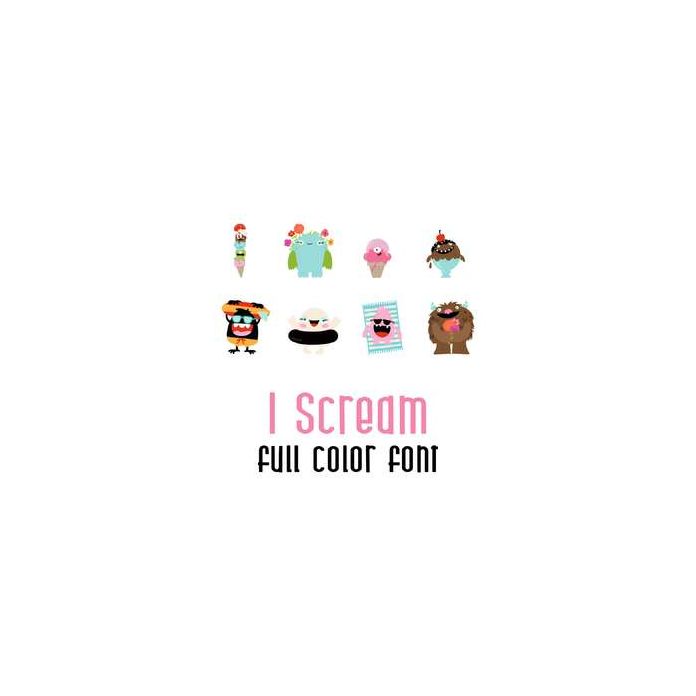
A full-color font stores svg data inside an Open Type font file. This font will look black if not used in a program like Silhouette Studio which is compatible. Images can be pulled apart and cut with your cutting machine.
This adorable full color doodlebat font features summer monsters, with ice cream and ready for all kinds of summer fun! Perfect for cards, crafts, gifts, decor, scrap book pages, planner stickers and more!